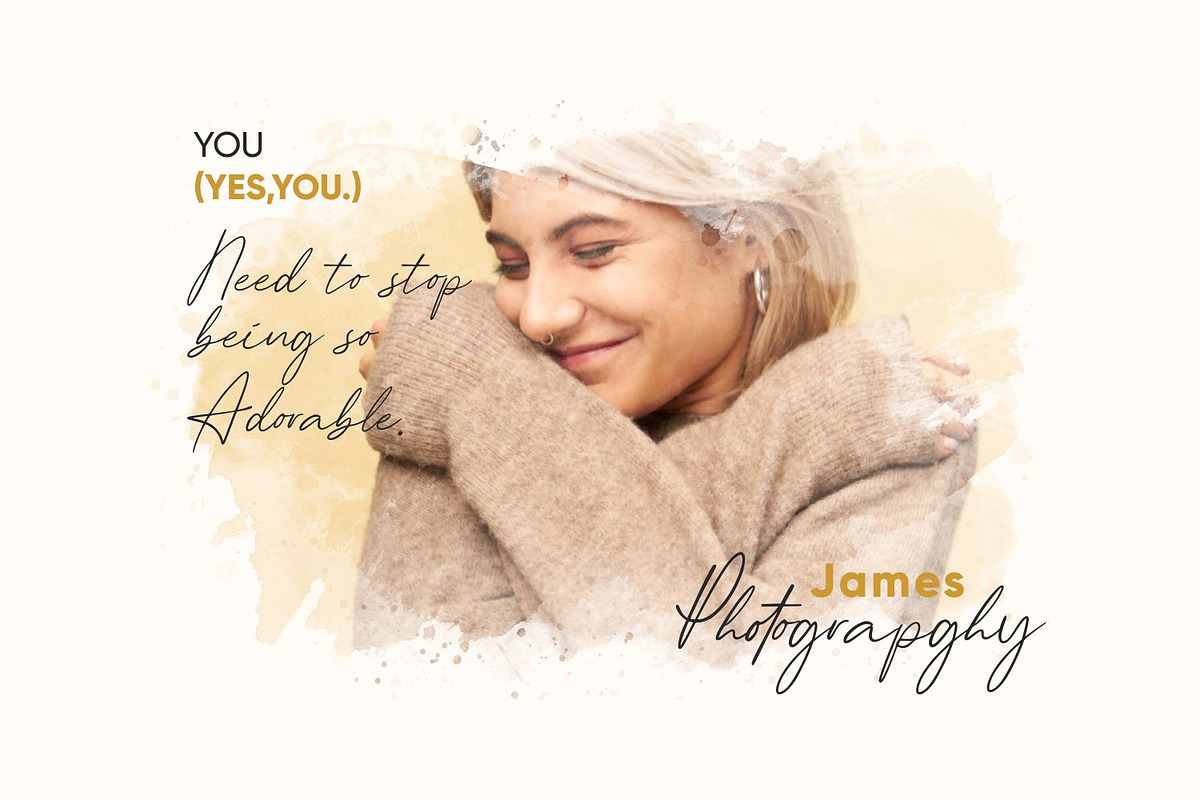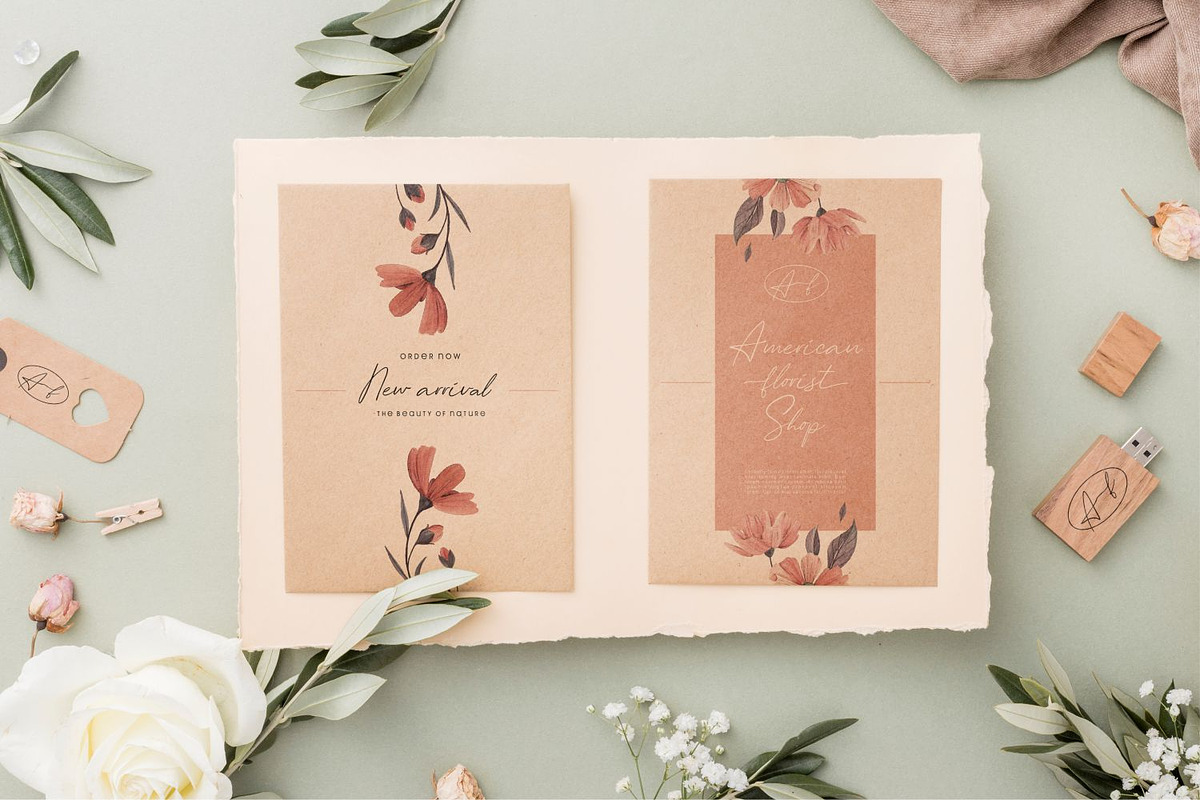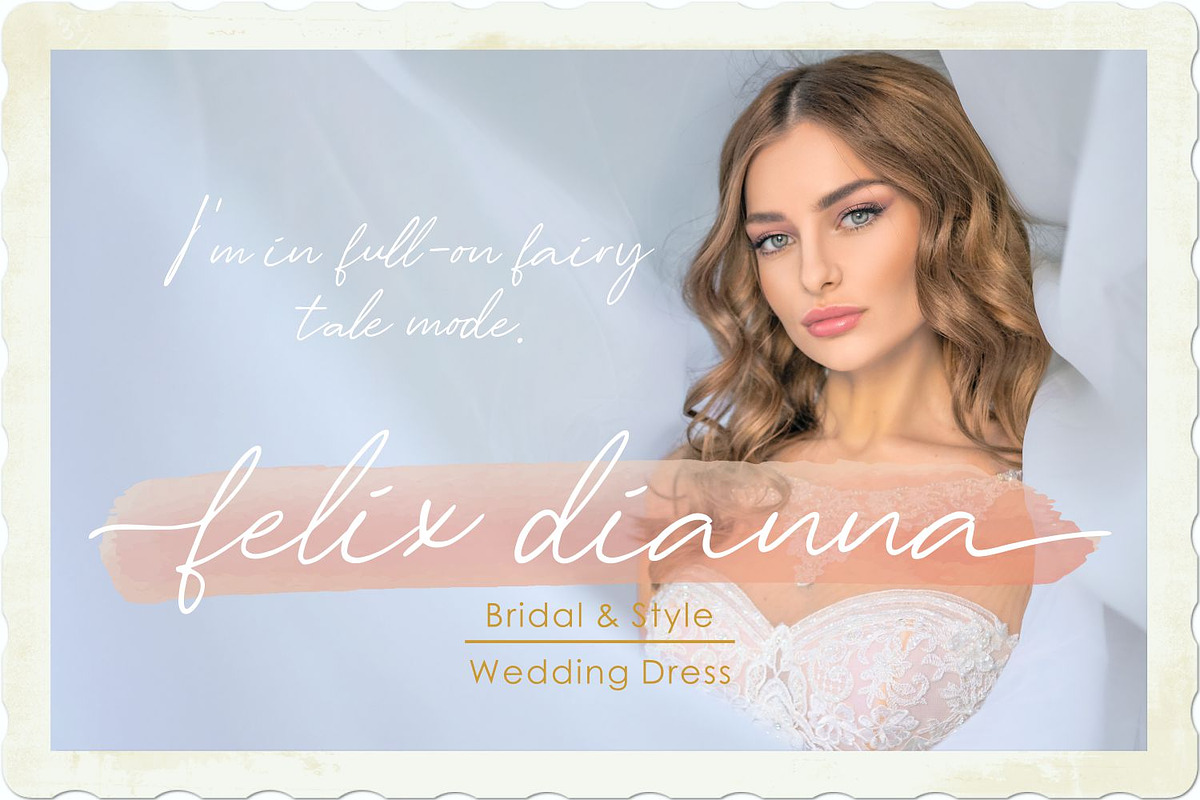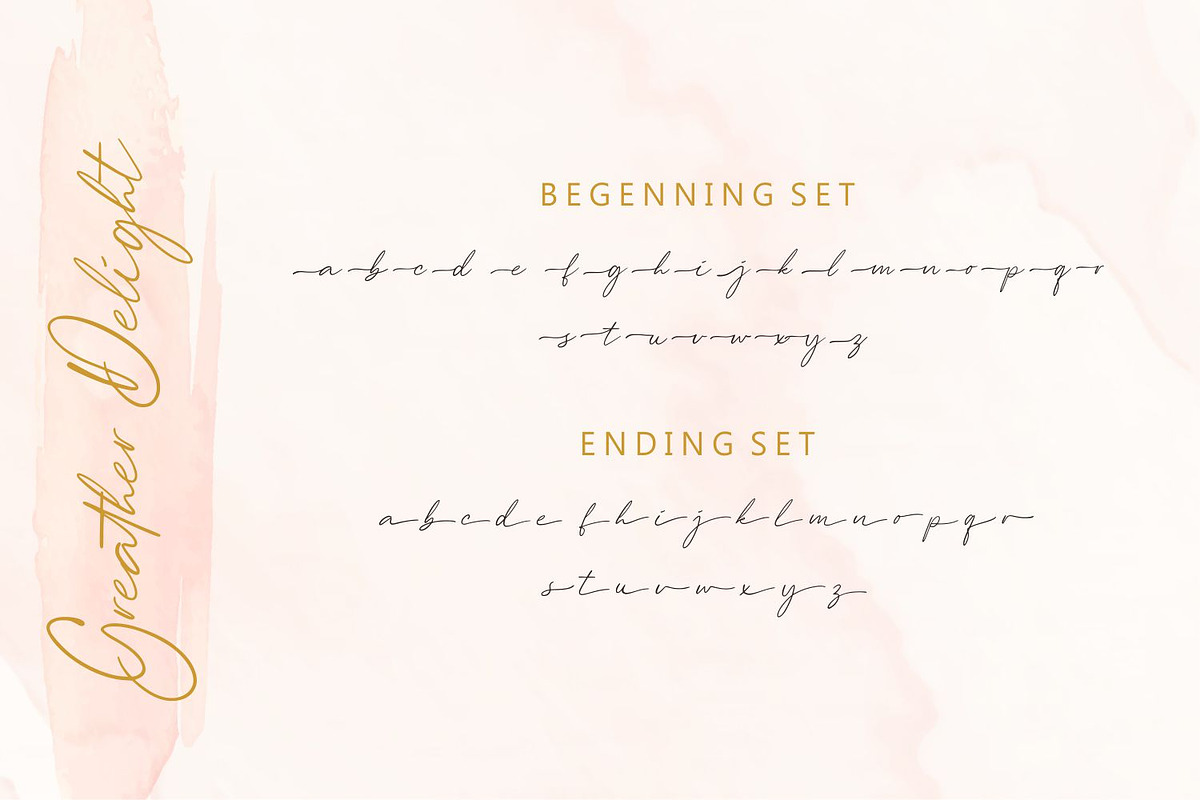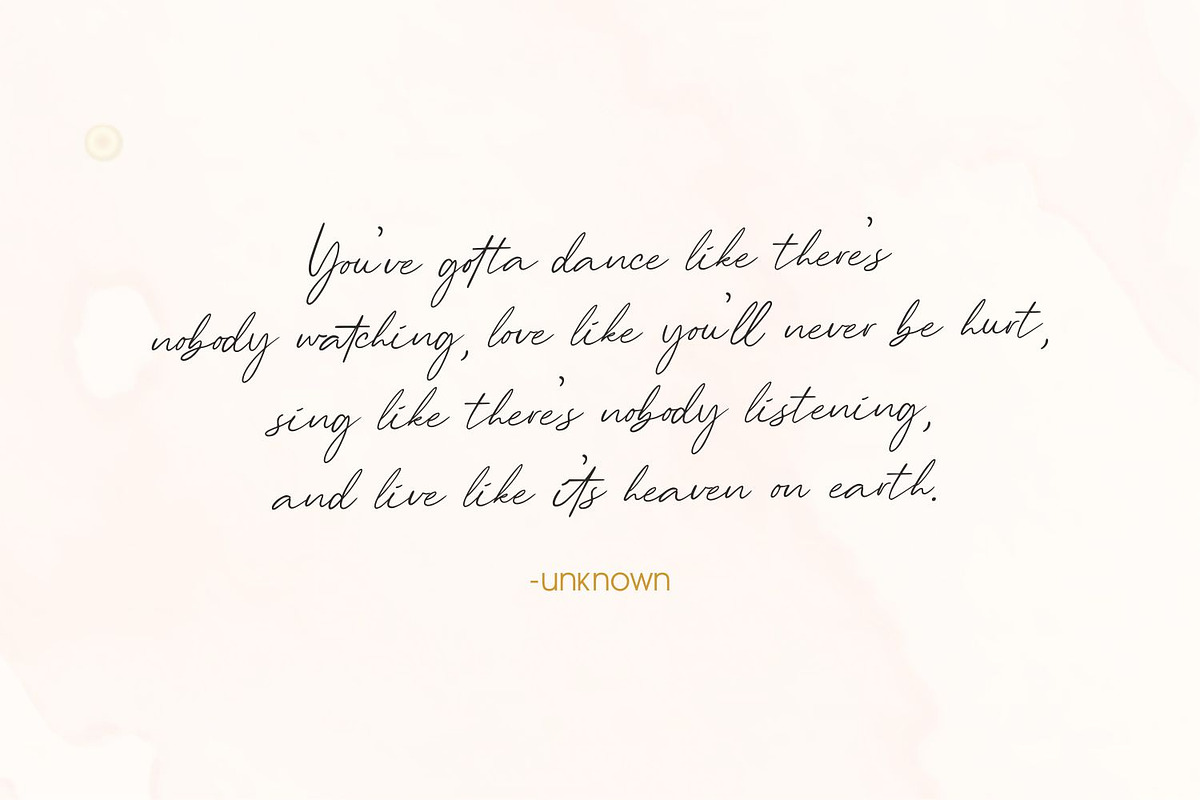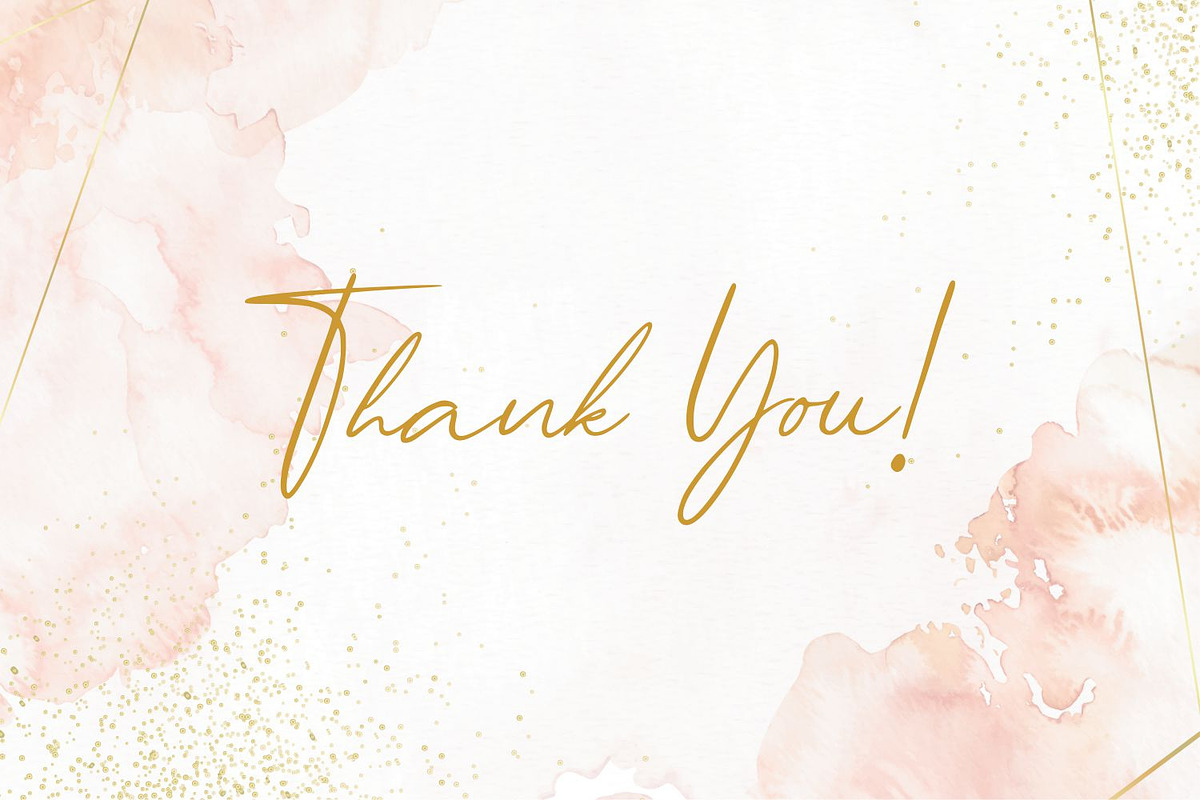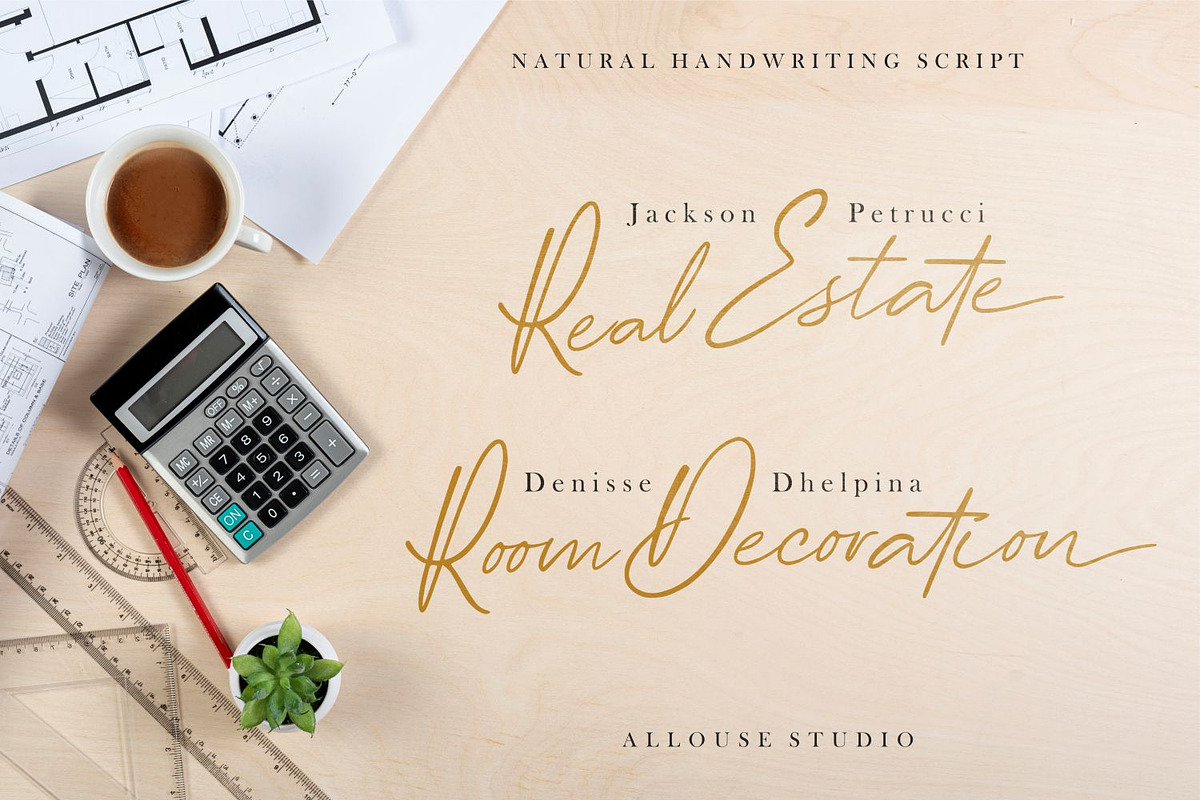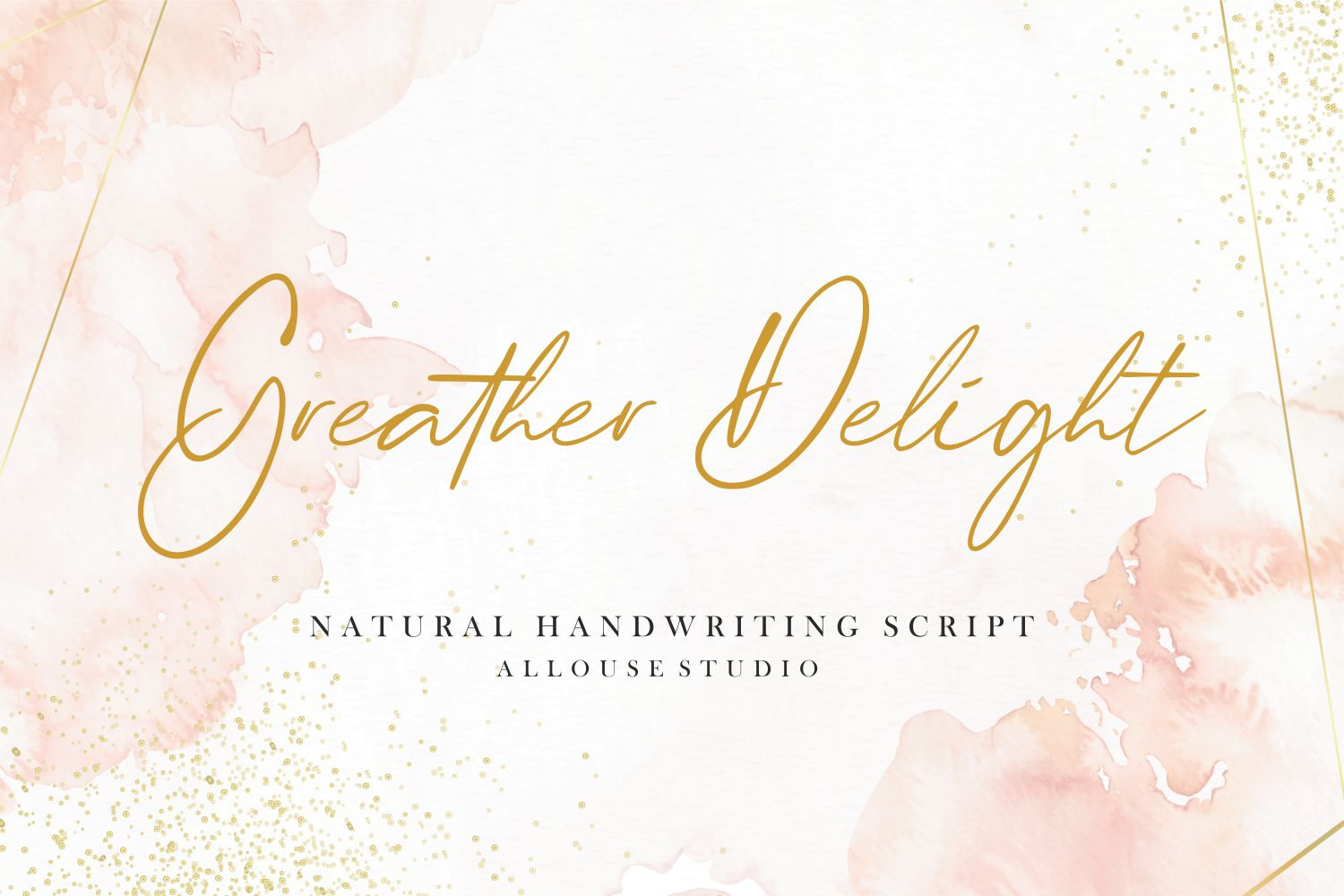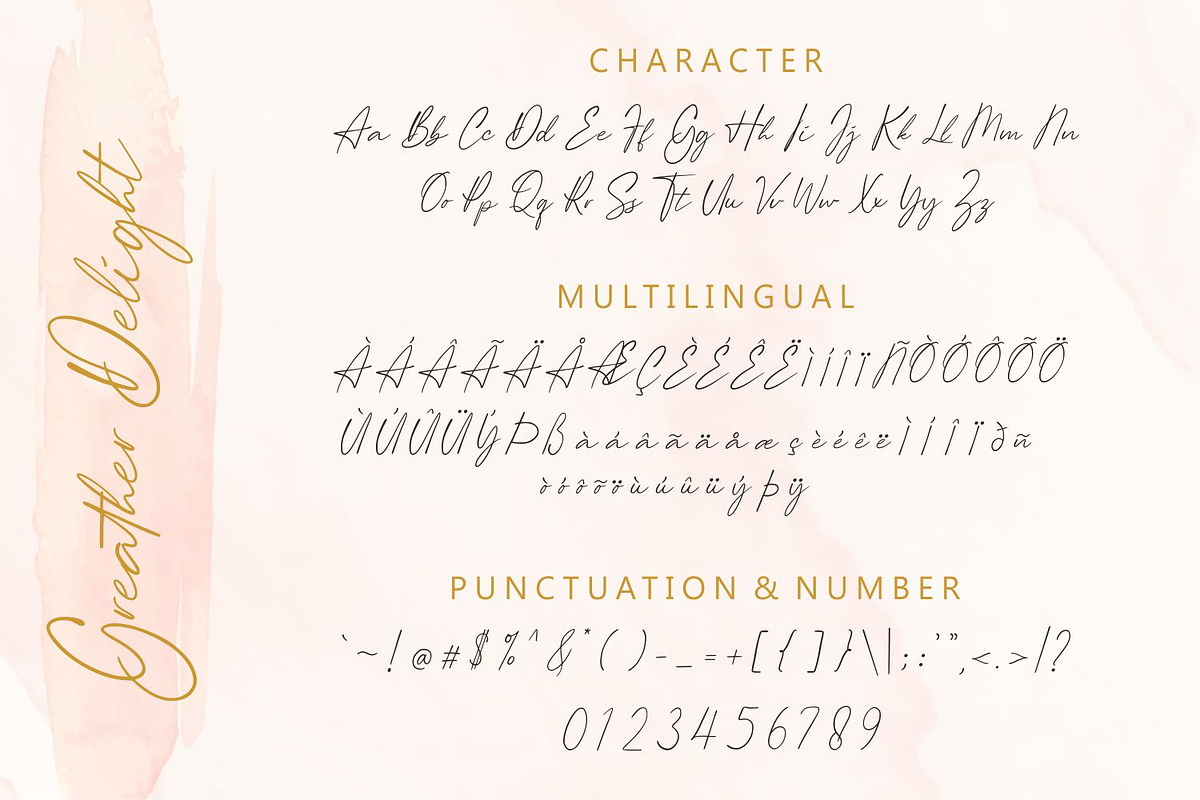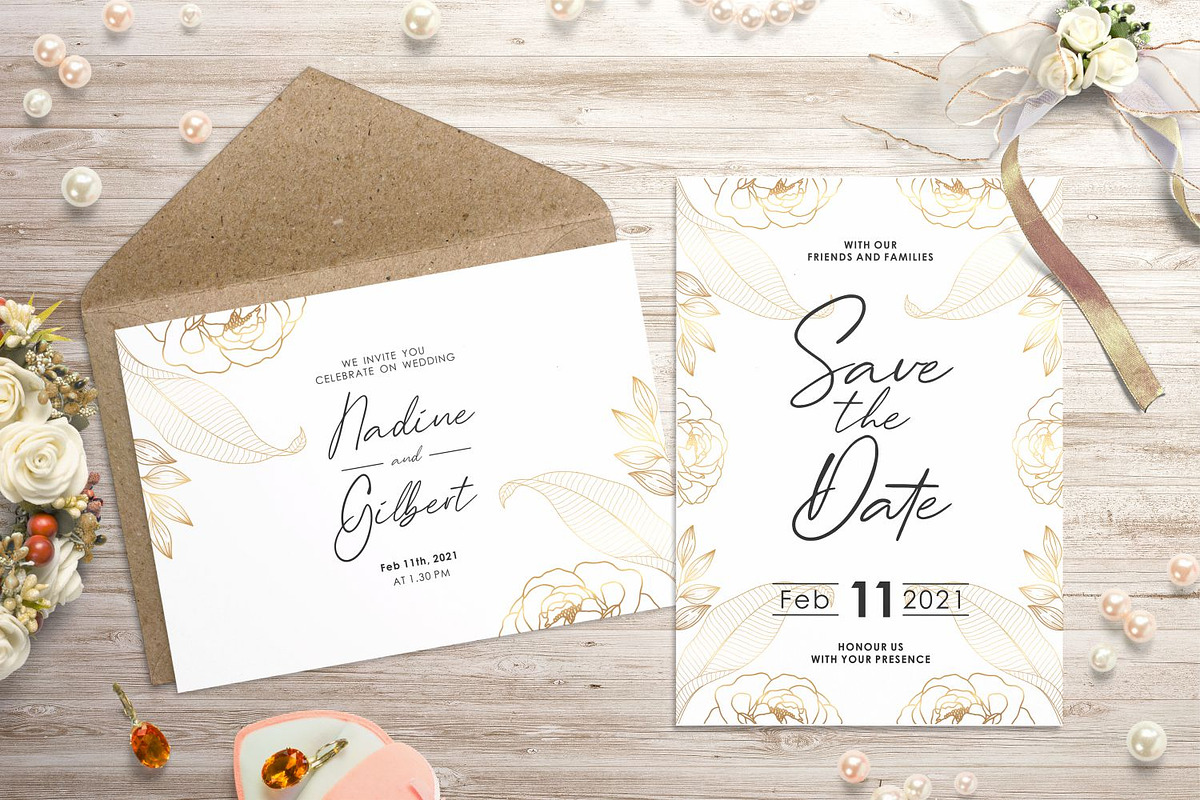
Greater Delight Font
Introducing by Allouse.Studio
Proudly Present, Greater Delight.
Greater Delight is a Natural Handwritting Script.
Greater Delight is perfect for product packaging, branding project, megazine, social media, wedding, or just used to express words above the background.